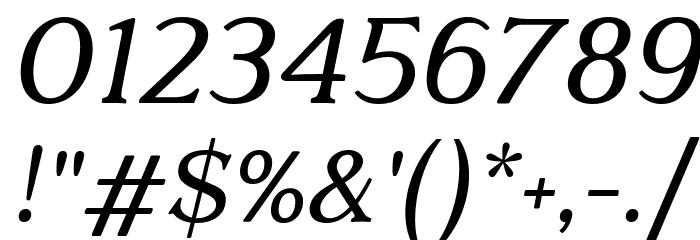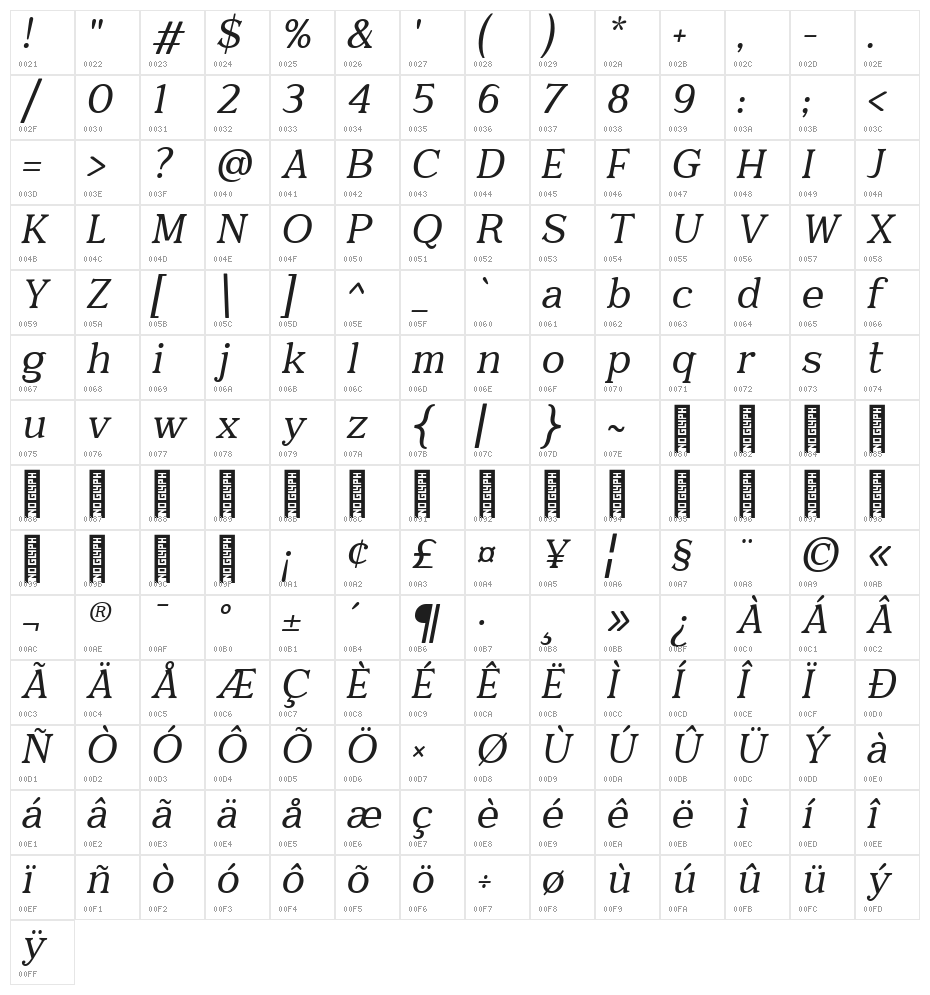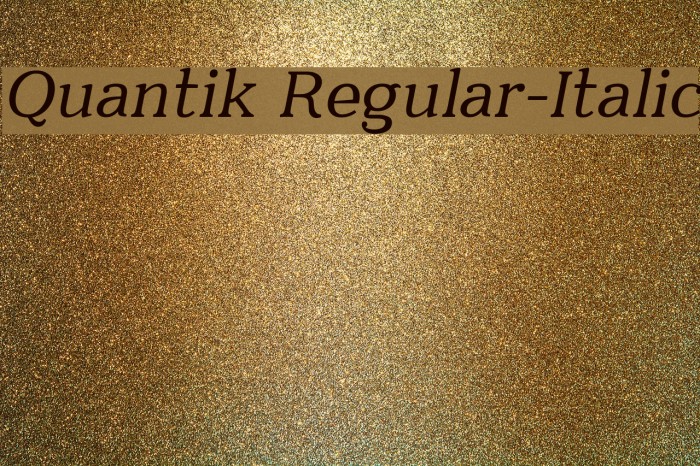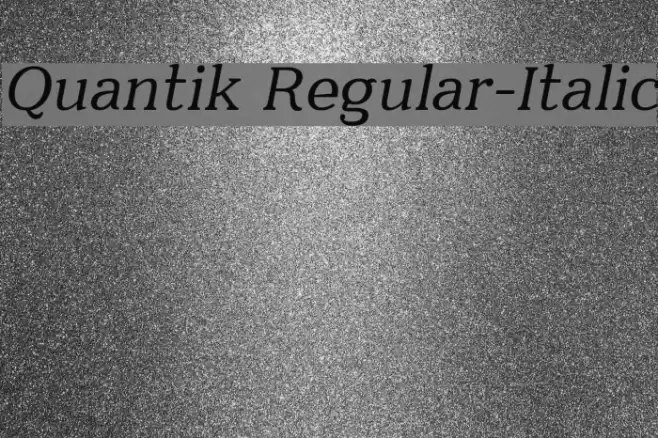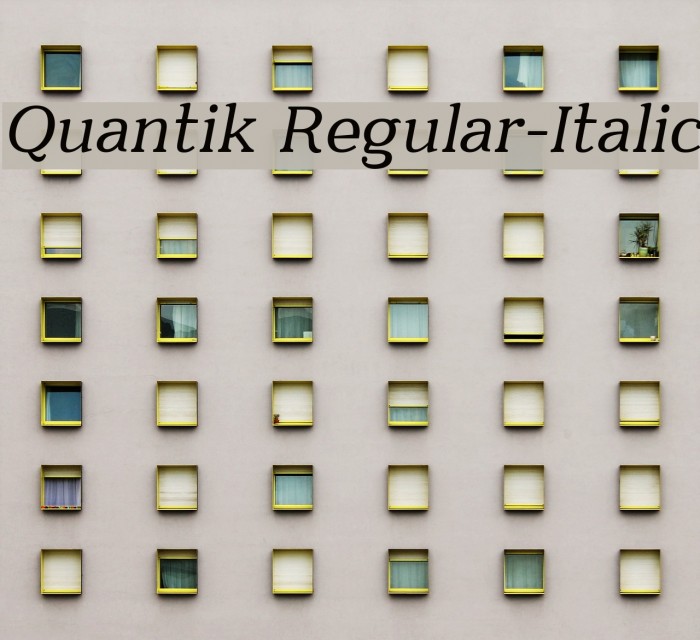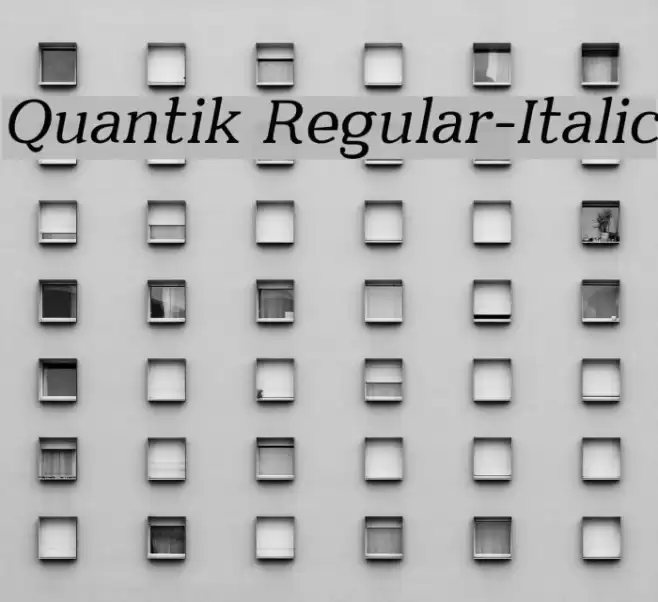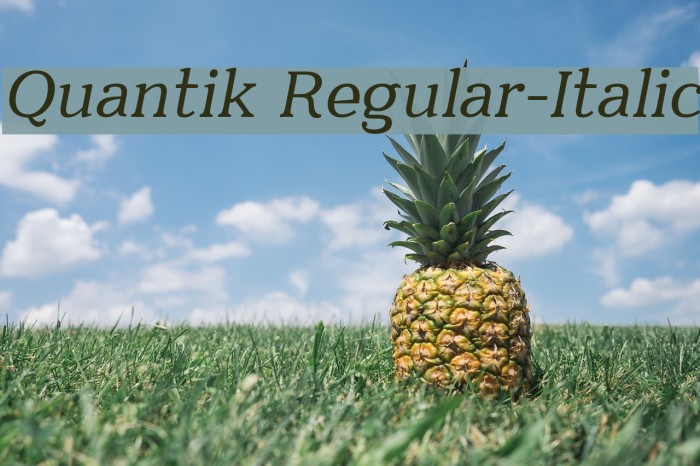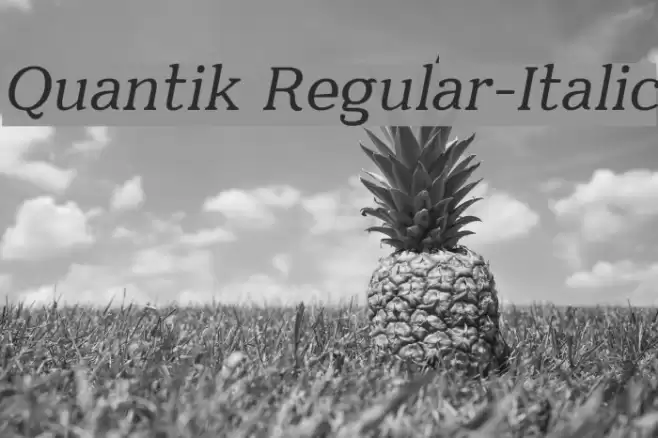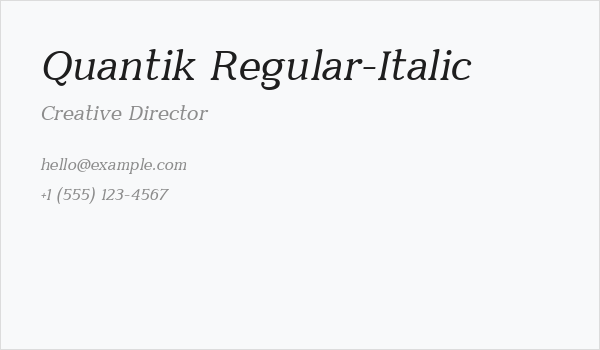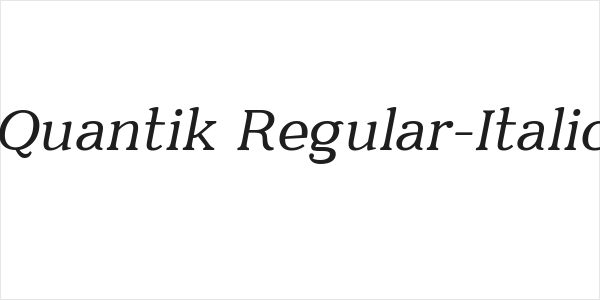
Quantik Regular-Italic Font
Quantik Regular-Italic Description
This font exhibits a classic serif style with a modern twist, characterized by its elegant and slightly slanted italic form. The letters are well-proportioned, with a moderate contrast between thick and thin strokes, giving it a refined and sophisticated appearance. The serifs are pronounced yet not overly exaggerated, providing a balance between readability and style. The font maintains a consistent flow, making it suitable for both digital and print media. Its italic nature adds a touch of dynamism and movement, enhancing its visual appeal.
| Proposed Projects | Ideal for editorial design, book covers, formal invitations, and branding projects that require a touch of elegance and sophistication. |